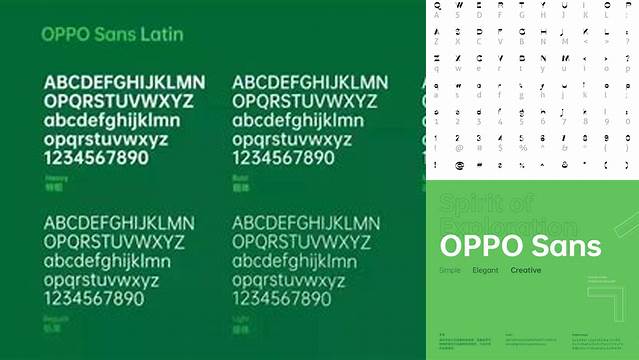
Why Oppo Sans Bold Font Matters
Alright, let's talk about why the Oppo Sans Bold font is a big deal. This font isn't just any font; it's the official typeface of Oppo smartphones and other products. It's designed to be clean, modern, and super readable, which is exactly what you want in a font. Imagine you're creating a presentation, a website, or even a simple poster. You want something that's easy on the eyes but also has a touch of style. That's where Oppo Sans Bold comes in. It's got that perfect balance of simplicity and elegance. Think about the user experience: the font plays a massive role in how people perceive your content. If the font is hard to read, people will bounce right off. But if it's clear and appealing, like Oppo Sans Bold, it makes everything look professional and polished. This is why it's so popular among designers and anyone who wants their text to look great.
Furthermore, the boldness of the Oppo Sans Bold font makes it stand out, which is perfect for headlines, titles, and any text that you want to grab attention. It's a versatile font that works well in a variety of contexts. Whether you're working on a personal project or something for a client, having a font like Oppo Sans Bold in your toolbox is a real win. It's a good choice for both digital and print projects. The font's design ensures that it renders well on screens and looks equally good when printed on paper. In today's world, where visual communication is everything, picking the right font can make or break your design. So, by using the Oppo Sans Bold font, you're making a statement about your brand or project. It shows you care about details and that you're up-to-date with modern design trends. Plus, using a well-designed font can also boost the overall professionalism of your work. This can lead to a better impression and more positive results, whether you're trying to get your message across to your audience or showcasing your creative skills. In summary, using Oppo Sans Bold is a smart move if you want to enhance the visual appeal and readability of your design projects.